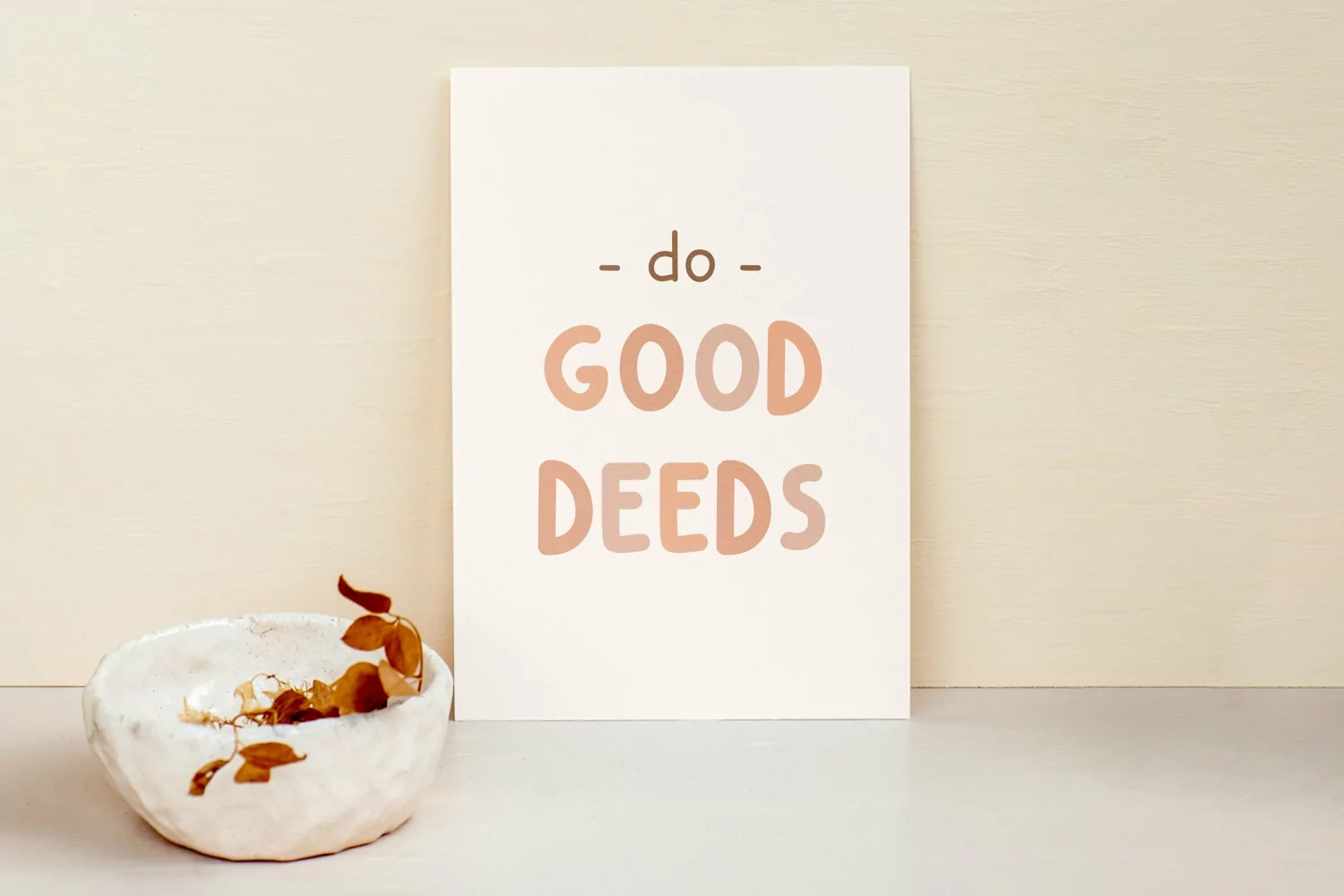
Fiyya Qiyya is a sweet and friendly handwritten font with two weights: regular and bold. It is perfect for posters, printed quotes, digital designs, or any projects that require a fun and happy look!